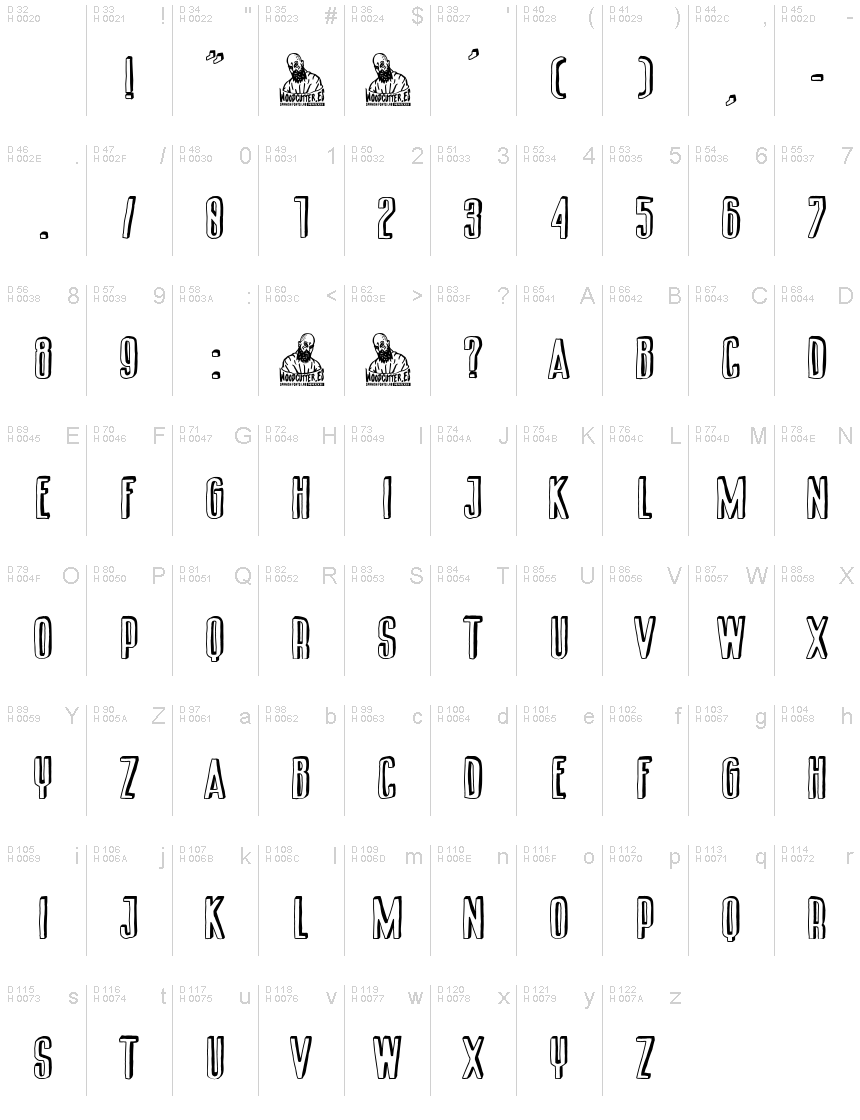
Comedy Channel 02
Comedy Channel 02 emerges from the creative mind of Woodcutter as an extra-condensed display font with a playful twist. Its cartoon style exudes an energetic charm that is both eye-catching and amusing, making it a perfect choice for designs intended to evoke laughter and light-heartedness. The typeface's narrow width allows for impactful use in tight spaces without losing legibility, offering versatility in various design layouts.
Crafted with precision, Comedy Channel 02 lends itself brilliantly to a myriad of creative projects. Whether you're designing the title for an animated series, creating engaging content for social media, or setting up punchy headers in editorial works, this font brings a jovial personality to the table. Its aesthetic appeal lies in its ability to balance whimsy with practicality—making any text stand out while still being eminently readable.
Embrace the lighthearted essence of Comedy Channel 02 and infuse your next project with its uniquely spirited character.